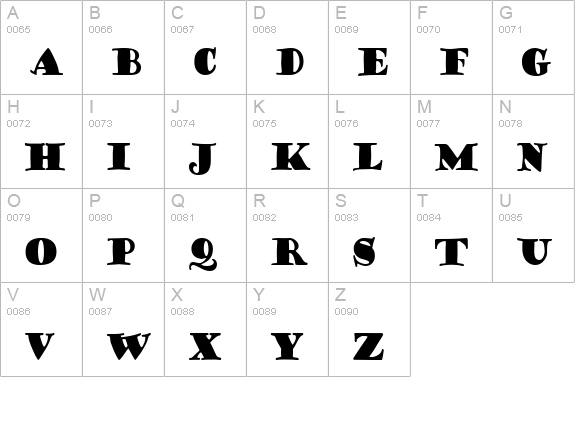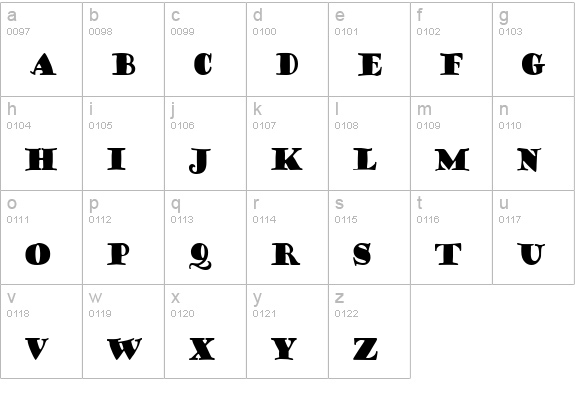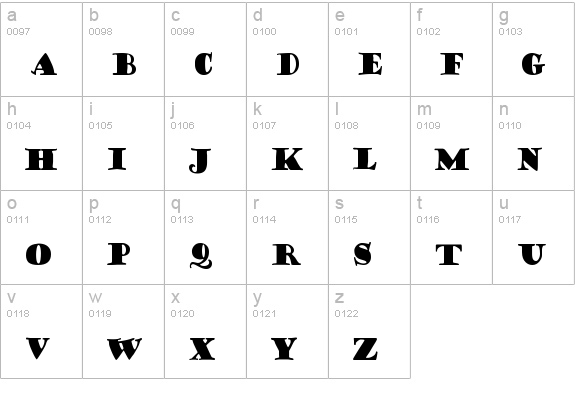
CoffeeSackCondensed Normal is the standard, neutral variant in the CoffeeSackCondensed typeface family \xE2\x80\x94 well suited to general body text, paragraphs, and standard typographic work.
CoffeeSackCondensed Normal font is a versatile and stylish typeface that exudes a modern yet vintage charm. With its condensed design, this font is perfect for creating eye-catching headlines, logos, and branding materials. The clean lines and balanced proportions make it a great choice for both digital and print projects. What sets CoffeeSackCondensed Normal font apart is that it is freely available to download at FontsMarket.com. This means you can add this unique font to your collection without any cost, making it a valuable addition to your design toolkit. Whether you're working on a website, poster, or packaging design, CoffeeSackCondensed Normal font is sure to make your text stand out with its distinctive style and legibility. Elevate your designs with this free and versatile font today!